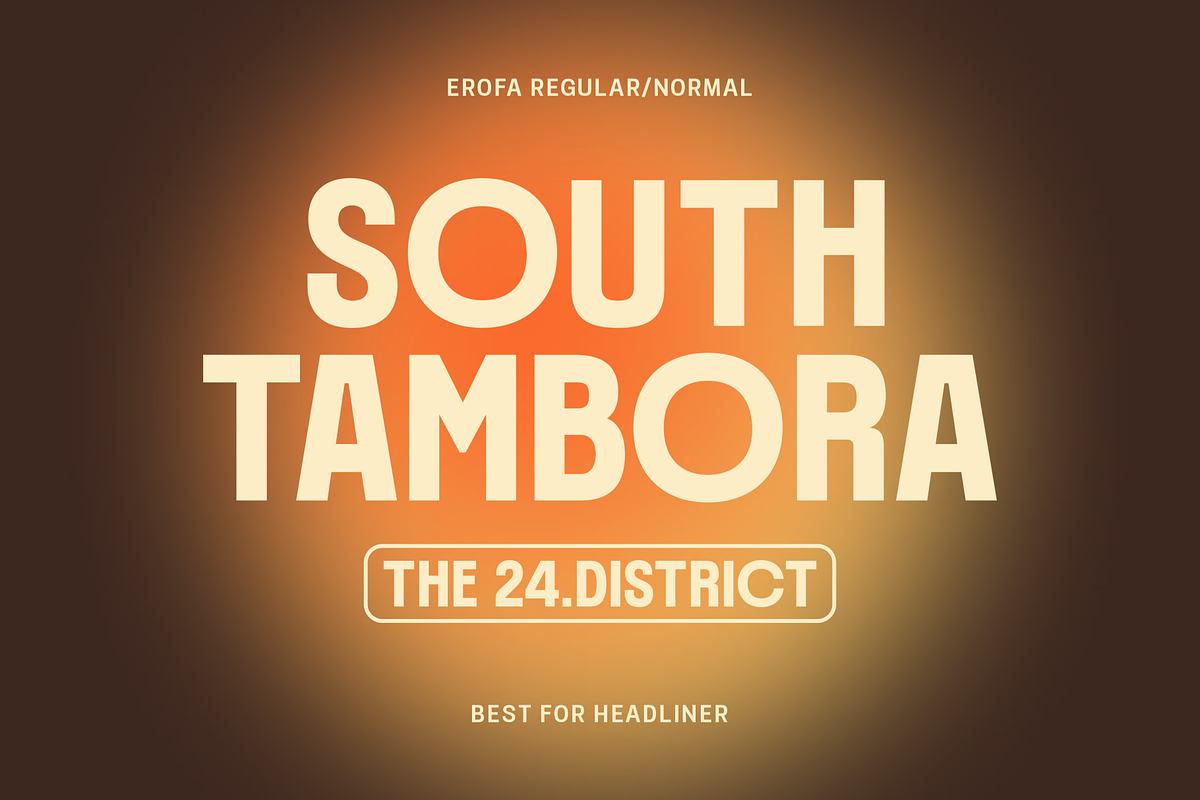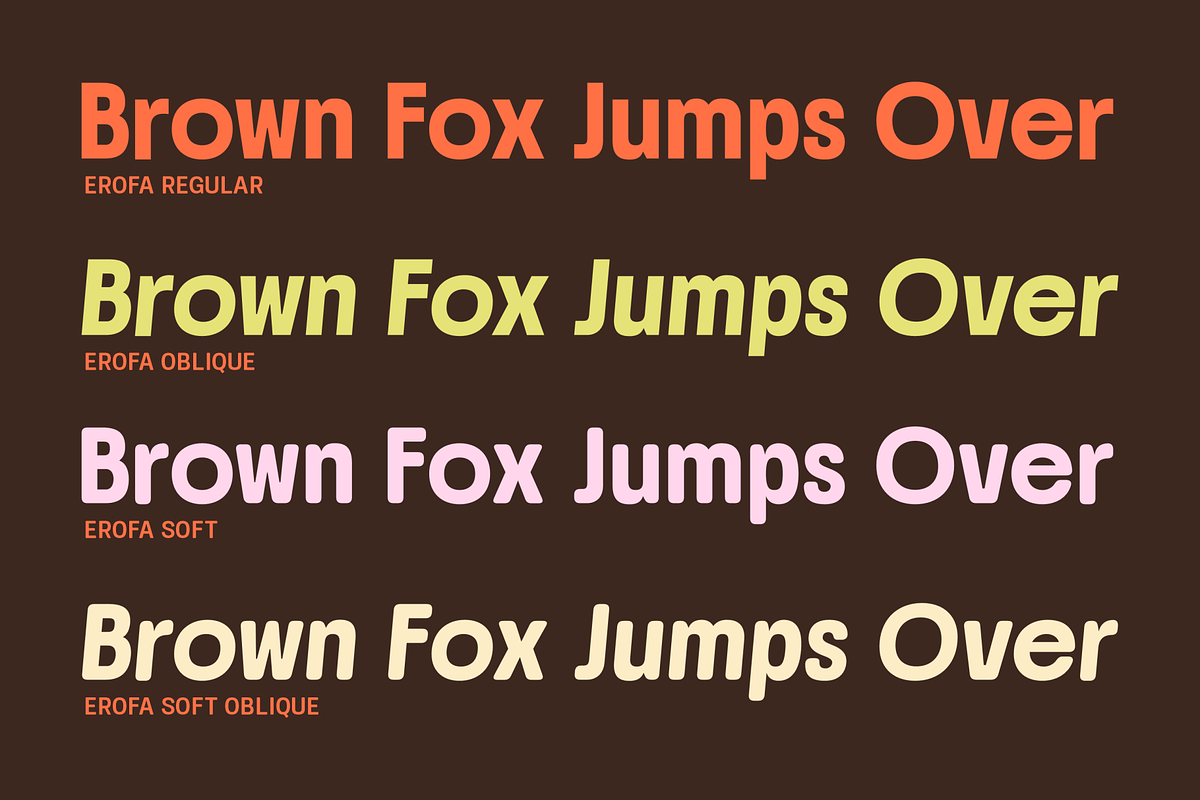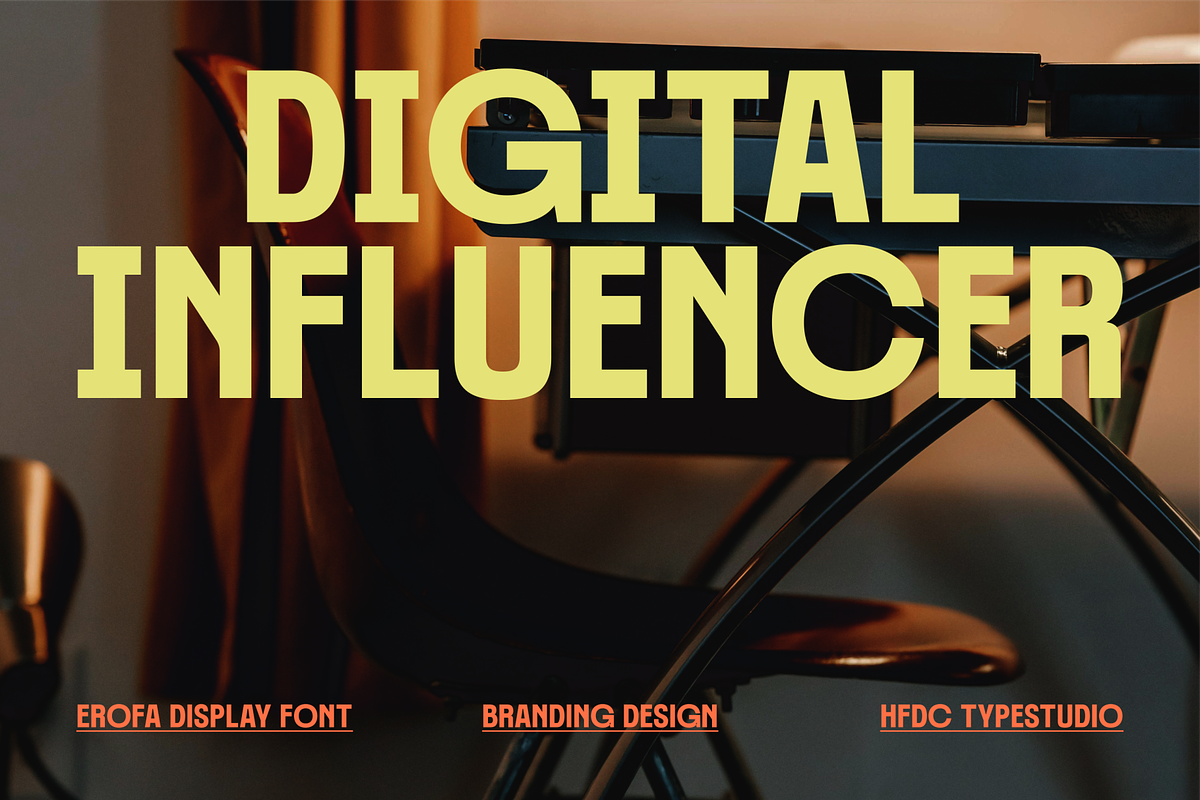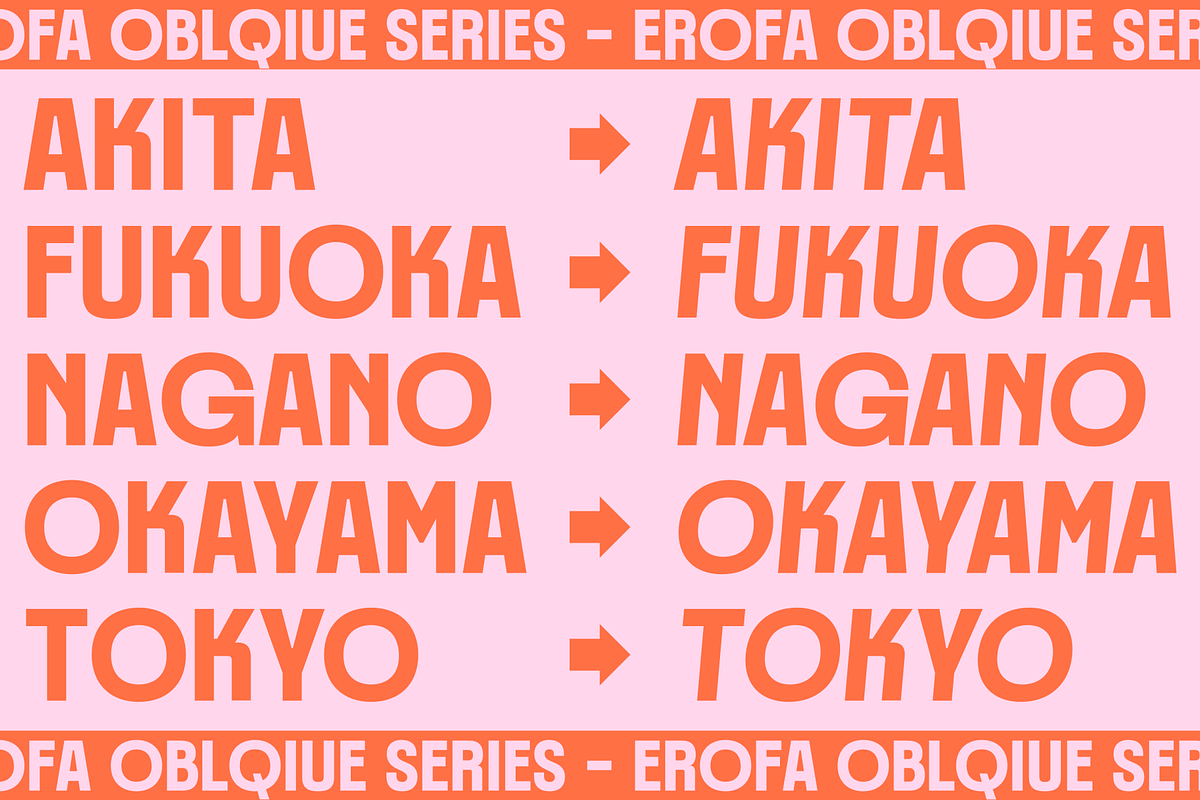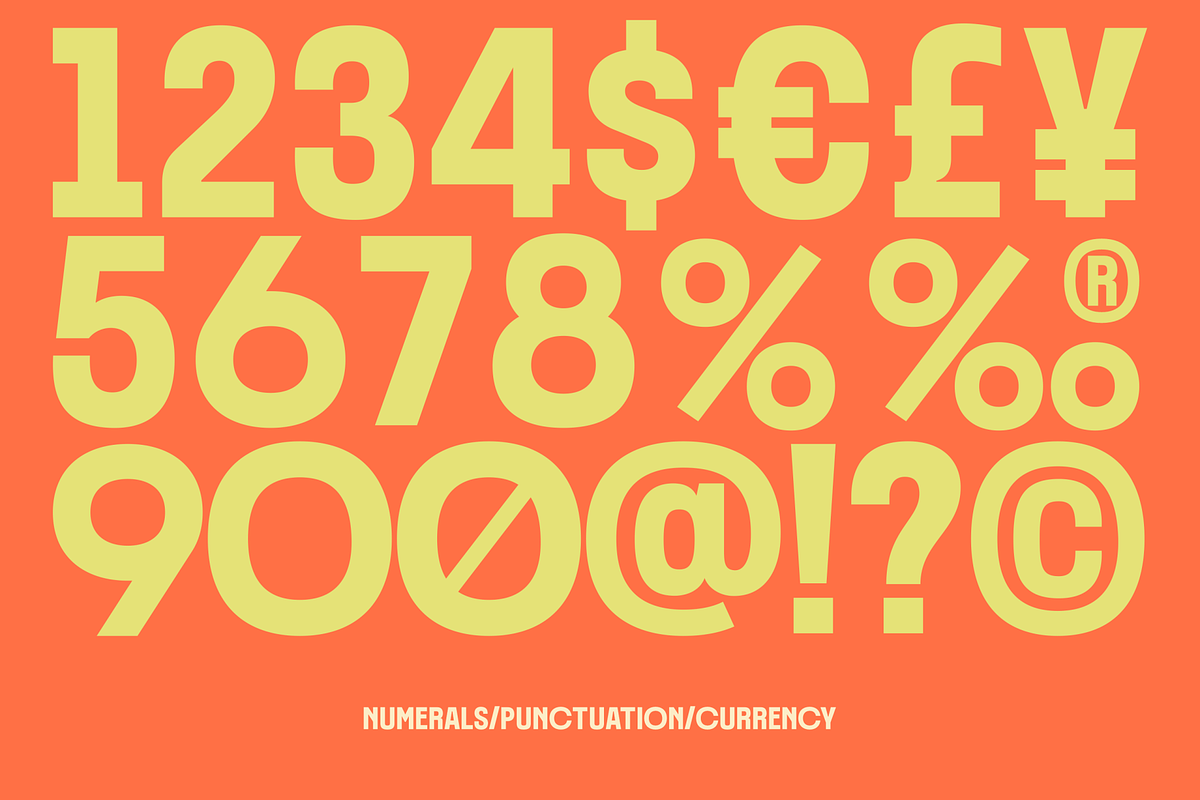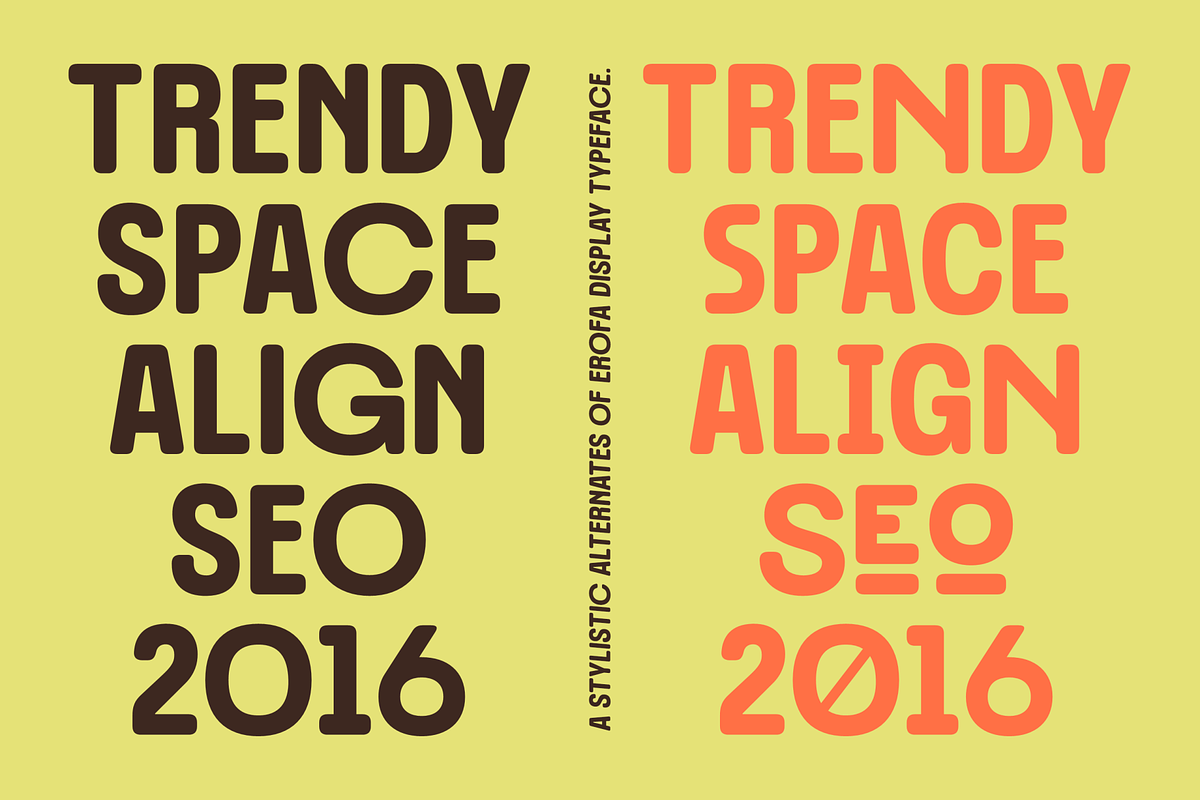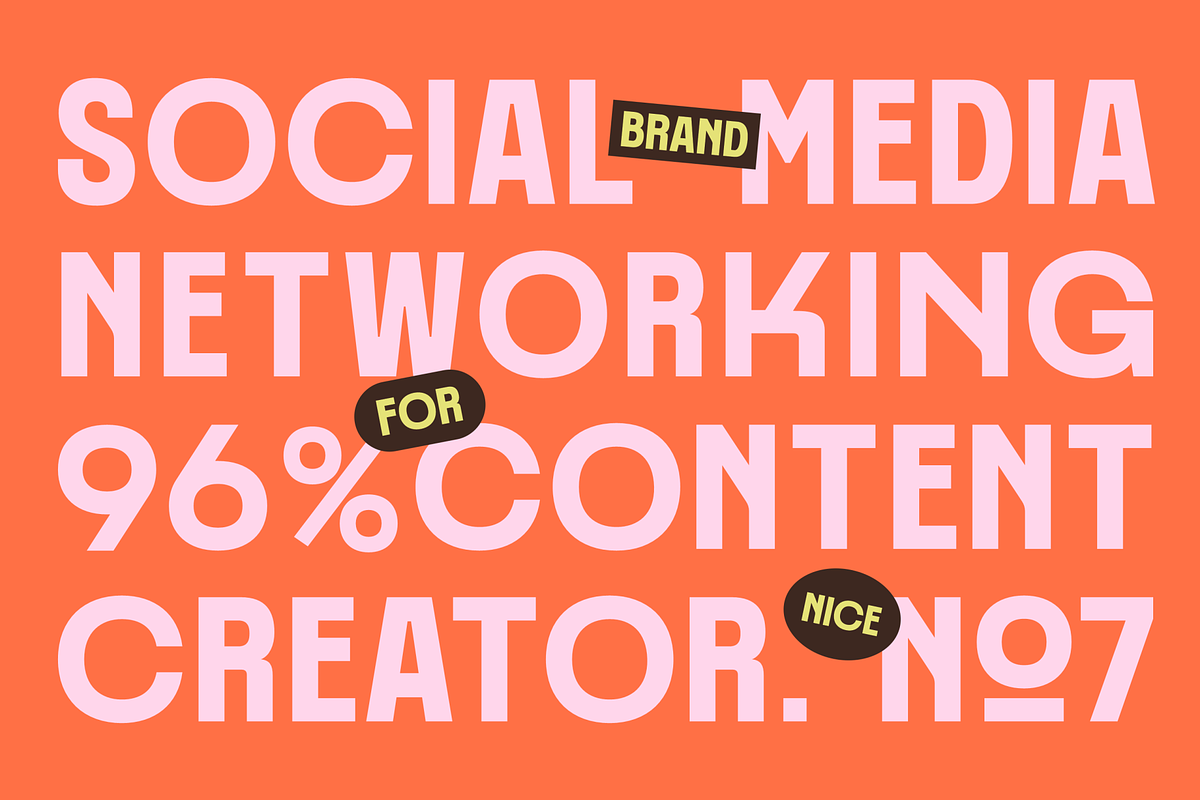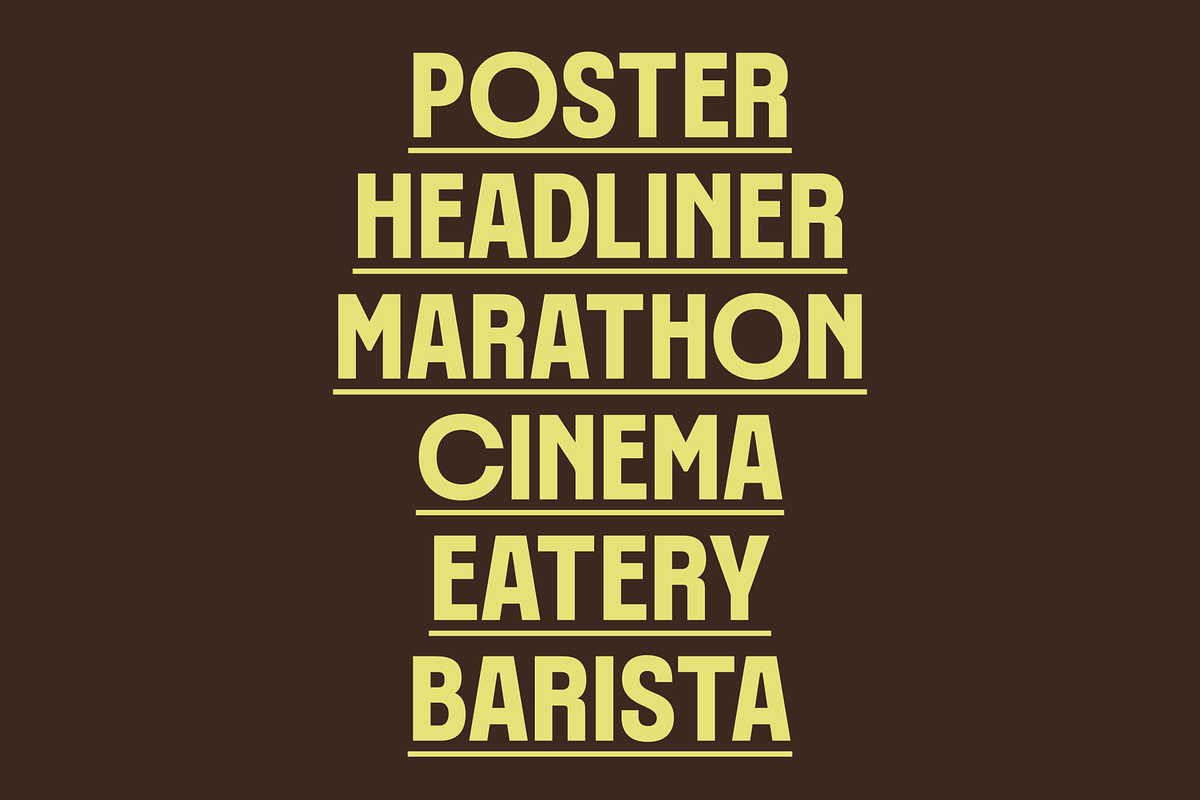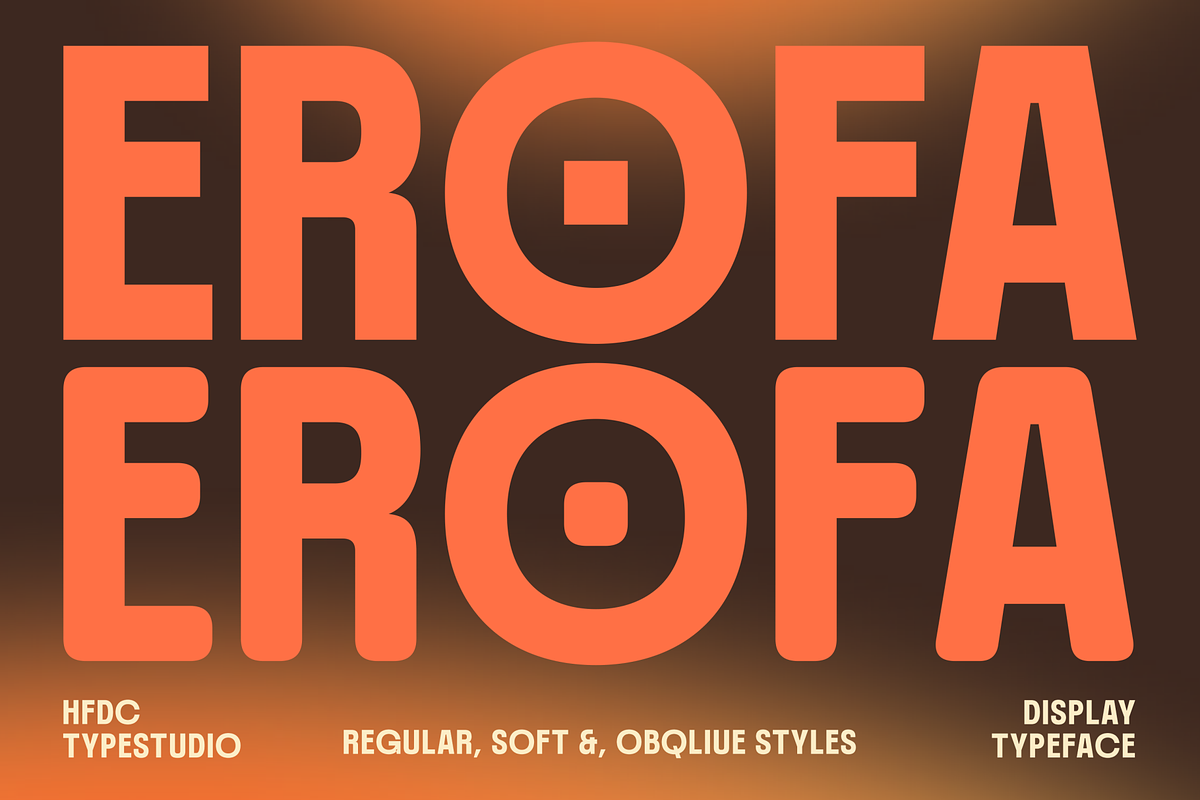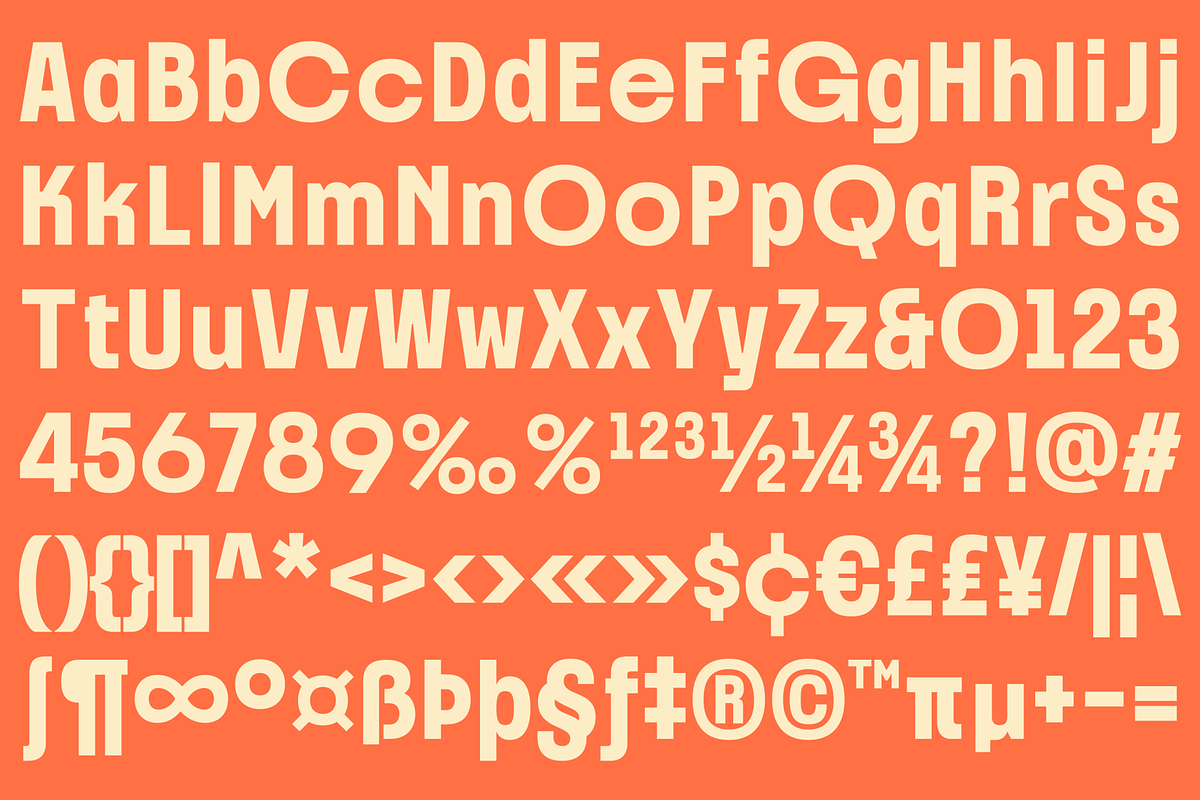
Erofa Condensed Bold Sans Serif
Erofa is a modern sans serif font that embodies a clean, futuristic aesthetic, making it the perfect choice for anyone looking to create a lasting impression. Its condensed design and oblique styling add a touch of dynamism, ensuring your branding stands out in a crowded market. With its soft curves and approachable vibe, Erofa is ideal for a variety of applications, including logos, movie posters, book covers, and packaging. The font is particularly effective for headlines and headers that demand attention while maintaining elegance.
Designed with versatility in mind, Erofa comes equipped with a robust set of features, including ligatures and stylistic alternates, allowing for an array of creative expressions. Its extensive glyph set of nearly 400 characters supports multilingual typography, making it suitable for global branding efforts.
Elevate your design with Erofa, where modernity meets functionality, making every word impactful.
4 Styles: Plain/Normal, Oblique/Italic, Soft/Round, and Soft Oblique/Italic
Alternates and Ligatures
Number